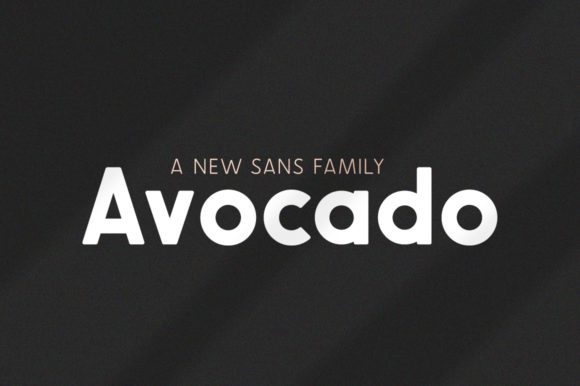
Introducing the Avocado Family Font: A Fresh Take on Typography
The world of typography has just gotten a whole lot fresher with the introduction of the Avocado Family Font. This brand new font family is making waves in the design community with its unique blend of style, versatility, and functionality. The Avocado Family Font includes three fabulous weights – Regular, Thick, and Thin – each carefully crafted to work perfectly with the others and complement a wide range of typography styles, including scripts and serifs.
The Avocado Family: A Trio of Typography Excellence
The Avocado Family Font is more than just a single font; it’s a trio of typography excellence. The three weights – Regular, Thick, and Thin – offer designers a range of creative possibilities, from subtle and elegant to bold and attention-grabbing. Whether you’re designing a logo, brochure, or website, the Avocado Family Font has got you covered.
Regular: The Perfect Balance
The Regular weight of the Avocado Family Font strikes the perfect balance between style and readability. It’s the ideal choice for body text, paragraphs, and other applications where clarity and legibility are paramount. With its clean lines, elegant curves, and subtle flair, the Regular weight is sure to become a staple in any designer’s toolkit.
Thick: Making a Statement
When you need to make a statement, the Thick weight of the Avocado Family Font is the perfect choice. With its bold, confident lines, this weight is ideal for headings, titles, and other applications where you want to grab attention. The Thick weight is not just loud and proud; it’s also remarkably legible, making it perfect for use in a wide range of design contexts.
Thin: Elegant and Refined
For those times when you need a touch of elegance and refinement, the Thin weight of the Avocado Family Font is the perfect solution. With its delicate lines and subtle curves, this weight is ideal for use in high-end designs, luxury brands, and other applications where sophistication is key. The Thin weight is not just beautiful; it’s also incredibly versatile, working perfectly with a wide range of design styles and typography.
Why Choose the Avocado Family Font?
So why choose the Avocado Family Font over other typography options? Here are just a few compelling reasons:
- Versatility: With three weights to choose from, the Avocado Family Font offers unparalleled versatility. Whether you’re designing a logo, brochure, or website, this font family has got you covered.
- Legibility: Each weight in the Avocado Family Font has been carefully crafted to ensure maximum legibility, even at small sizes.
- Style: The Avocado Family Font is more than just a utilitarian typography solution; it’s also a stylish and elegant addition to any design.
- Compatibility: The Avocado Family Font works perfectly with scripts, serifs, and other typography styles, making it the ideal choice for designers who want to create unique and compelling designs.
- Mix and match: Don’t be afraid to mix and match the different weights to create visual interest and hierarchy in your designs.
- Experiment with color: The Avocado Family Font works perfectly with a wide range of colors and design styles, so don’t be afraid to experiment and find the perfect combination for your design.
- Use it for body text: The Regular weight of the Avocado Family Font is perfect for body text, making it a great choice for long-form content.